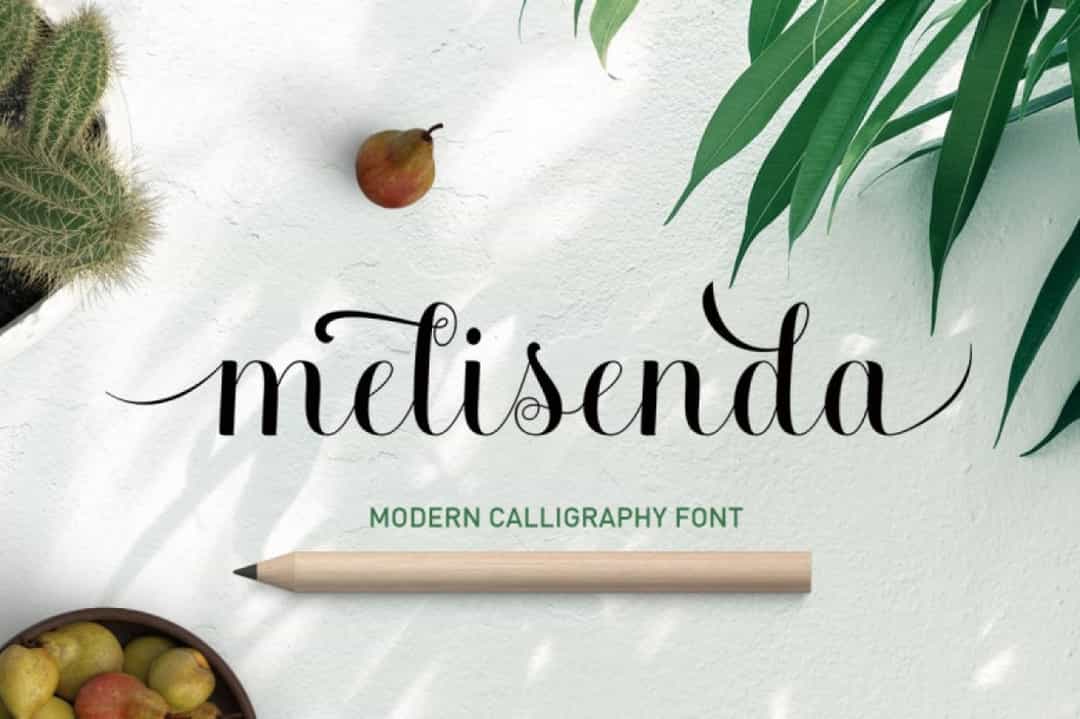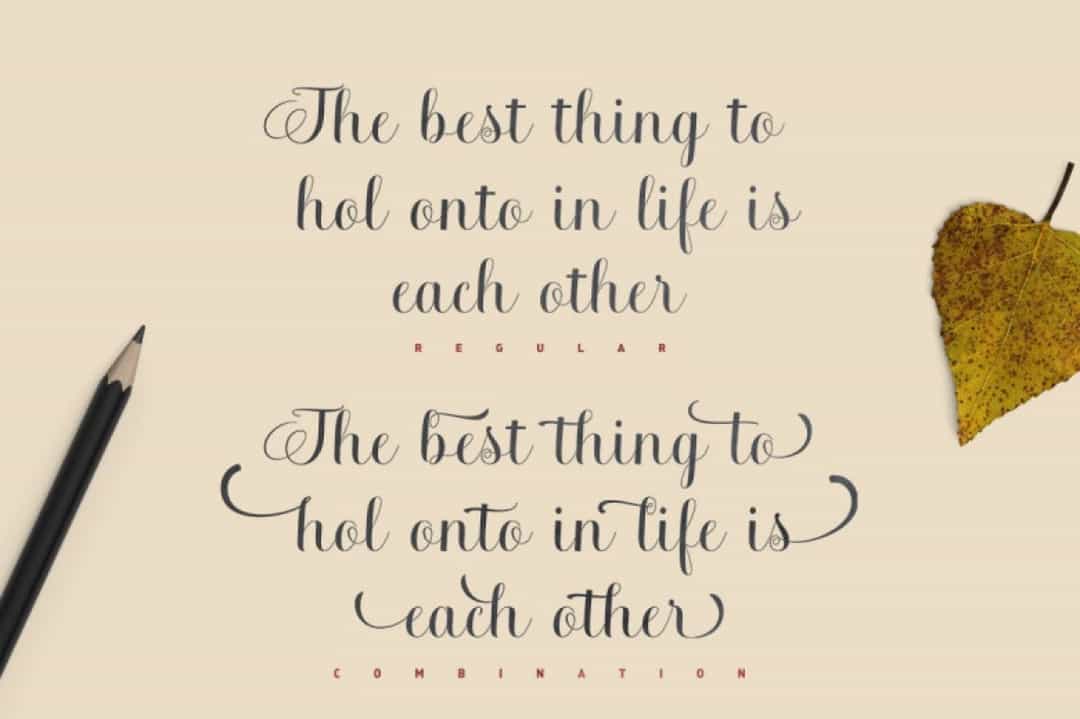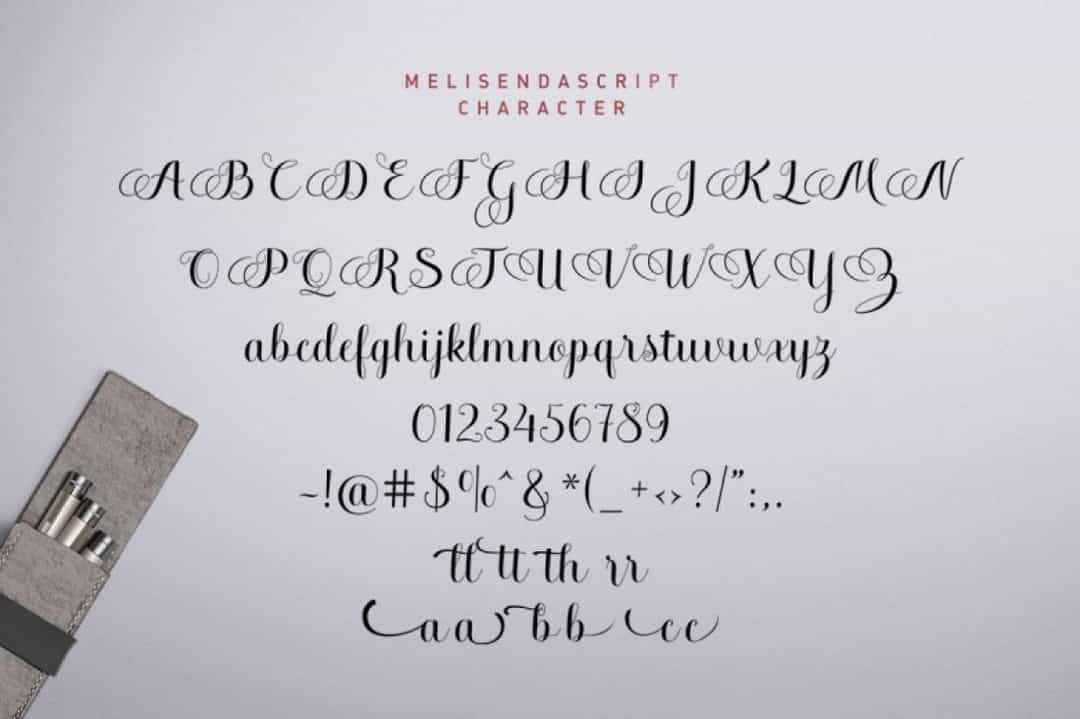
Melisenda font is an elegant hand scratch font with the latest style. I hope that it piques your interest should you decide to utilize it for work; its many options allow for simple use quickly, from letters lower and uppercase, punctuation patterns and numbers as well as multilingual support to multiple ligatures and styles for alternate style printing.